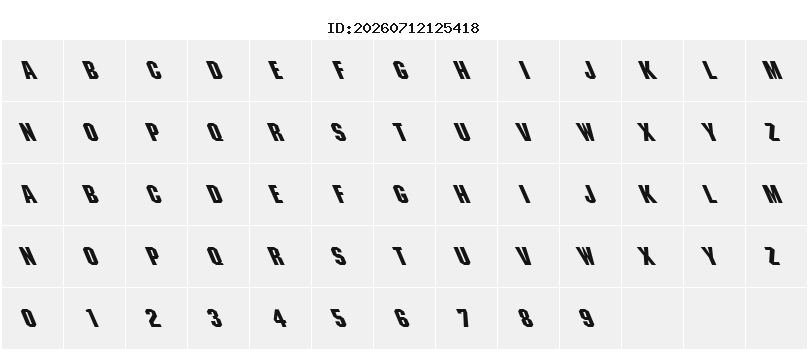
• Font Name: Machine-Light Leftyie
• Full Font Name: Machine Light Leftyie
Machine-Light Leftyie.ttf is a modern, elegant sans-serif font designed for ultimate readability and visual harmony. Perfect for branding, headlines, web design, and print materials.